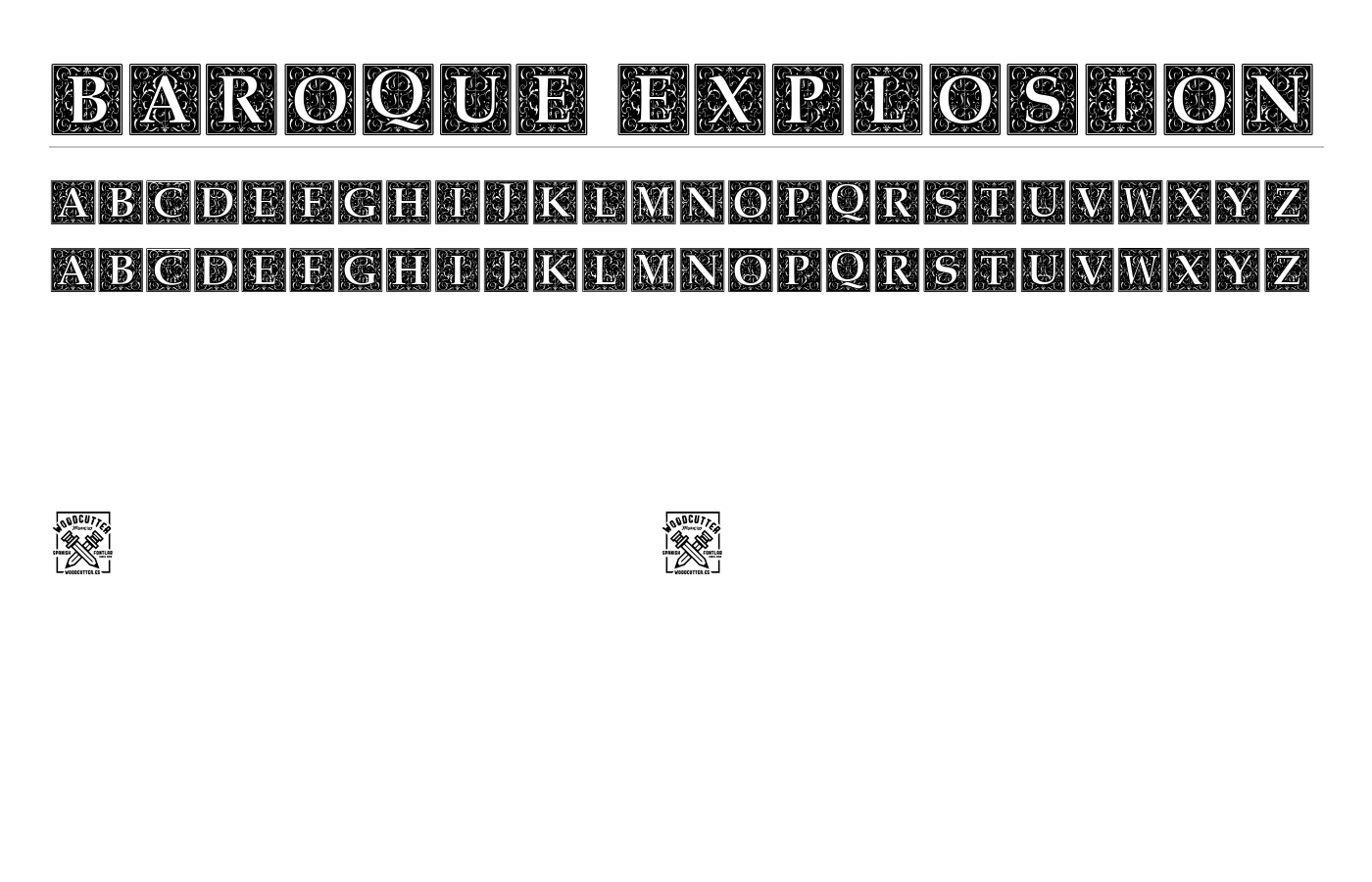
Baroque Explosion is a decorative serif font characterized by its bold, uppercase letters enclosed in ornate, vintage-inspired frames filled with intricate floral and swirl patterns. This font exudes a dramatic, elegant, and antique vibe, making it ideal for eye-catching headlines, logos, and packaging designs that seek to convey luxury or a classical, baroque aesthetic. Its strong, detailed style works best in display settings where its ornamental charm can truly stand out.
Baroque Explosion Font
About Baroque Explosion Font